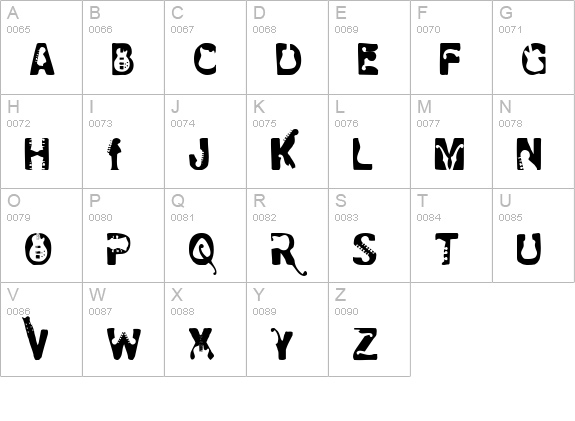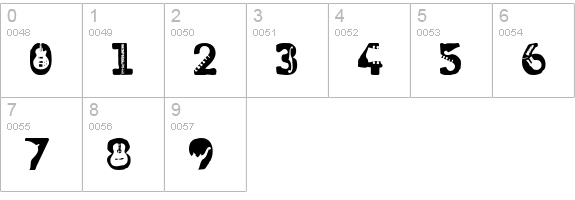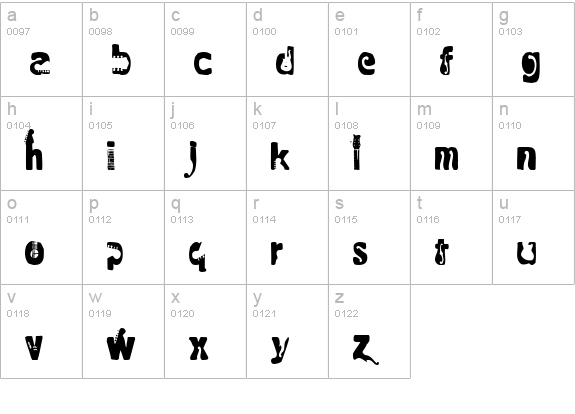
Rock electric Font Details
Introducing Rock Electric, a stunning and dynamic font that will electrify your designs! This font is perfect for those looking to add a touch of boldness and power to their projects. With its rugged edges and sleek lines, Rock Electric exudes a sense of raw energy and modernity. Whether you're designing a logo, poster, or website, Rock Electric will make a lasting impression. Its versatility allows it to be used for a variety of purposes, from rock bands and music festivals to sports events and urban-themed projects. The unique combination of sharp angles and electrifying curves gives this font a distinct personality that is both edgy and captivating. What's even better is that Rock Electric is available for free download at FontsMarket.com. Yes, you read that right - absolutely free! Say goodbye to spending a fortune on premium fonts when you can get your hands on this gem at no cost. FontsMarket.com is your go-to source for high-quality fonts, and Rock Electric is just one of the many amazing options available. So, why wait? Give your designs the jolt they need with Rock Electric. Download it now from FontsMarket.com and let your creativity run wild. Whether you're a professional designer or an enthusiastic hobbyist, this font is sure to elevate your work to new heights. Don't miss out on this electrifying opportunity - get Rock Electric today and make your designs rock!